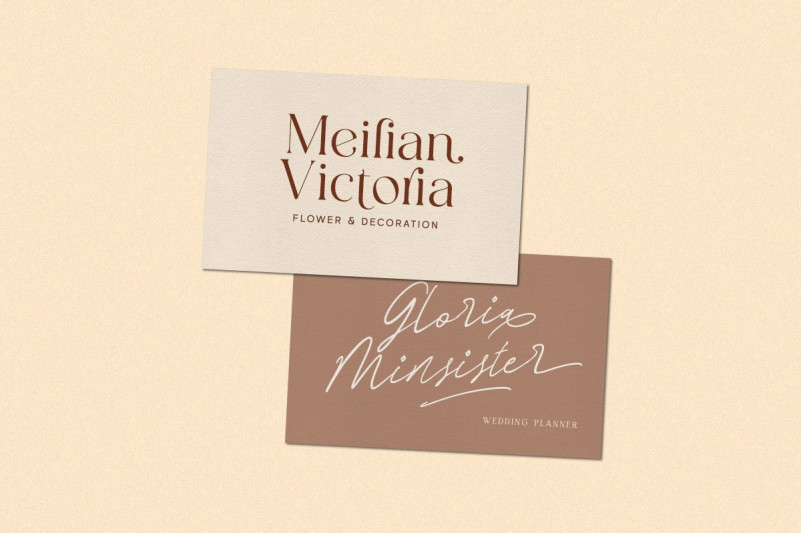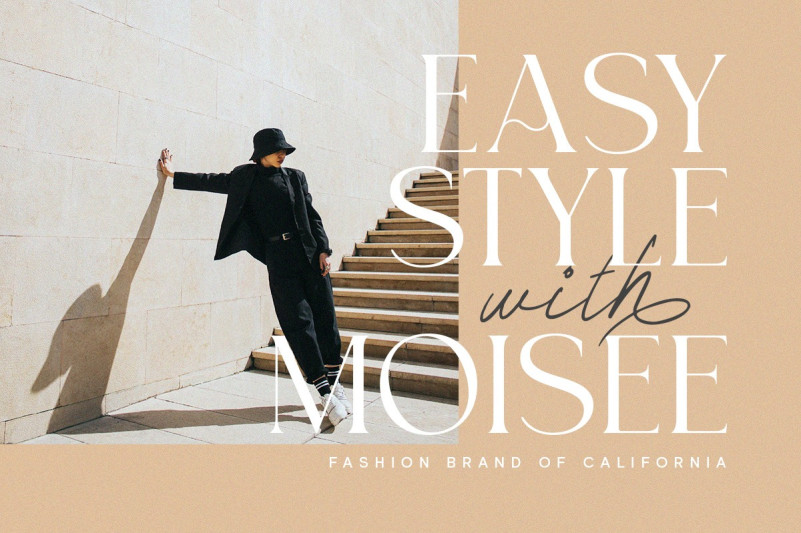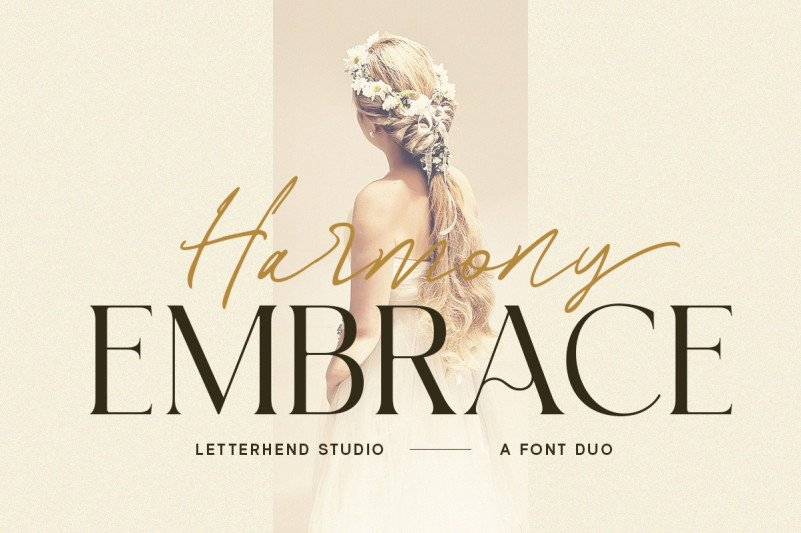
Harmony Embrace Font
Harmony Embrace Font is a font duo that seamlessly blends a signature script and chic serif font to create a modern and elegant look.The script font is perfect for creating a personal touch and adding a bit of flair to your designs, while the serif font adds a sense of professionalism and sophistication. This font perfectly made to be applied especially in logo, and the other various formal forms such as invitations, labels, logos, magazines, books, greeting / wedding cards, packaging, fashion, make up, stationery, novels, labels or any type of advertising purpose.